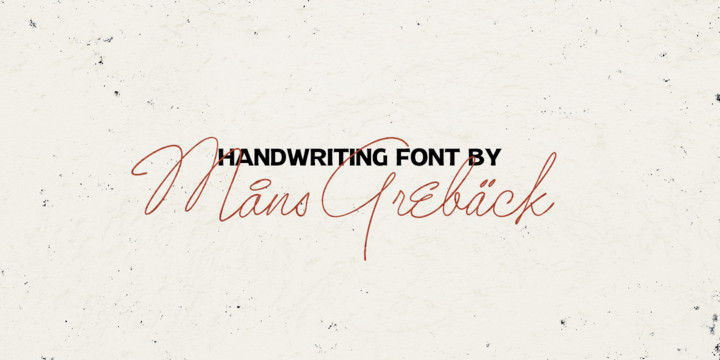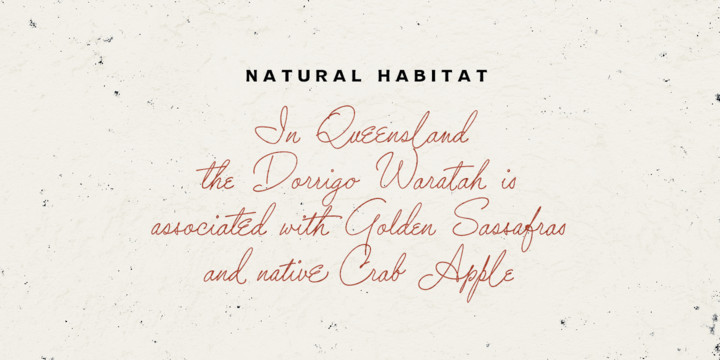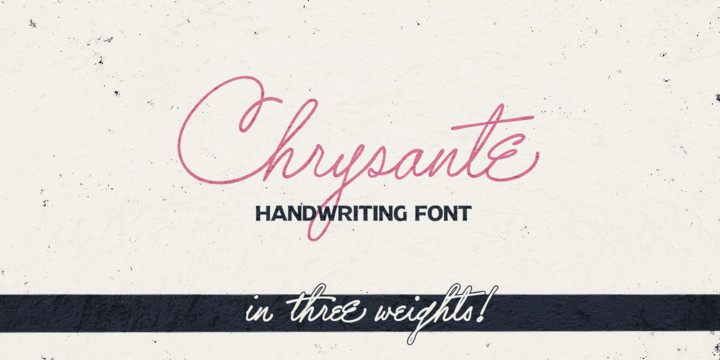
Chrysante Font
Chrysante is a flowing pen script.
The typeface was drawn and created by Måns Grebäck between 2018 and 2020.
Its thin lines are inspired by mid-century advertising, emits optimism and has a strong personality.
The ink script family consists of three weights: Chrysante Thin, Chrysante Medium and Chrysante Bold.
Its multiple alternate alphabets gives the font a true handwritten feeling.
Use it for a logotype, a greeting card or as a headline.